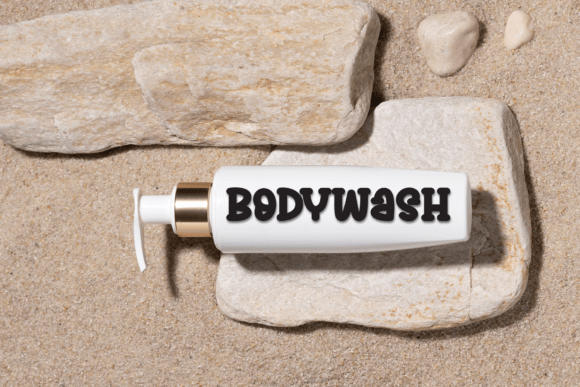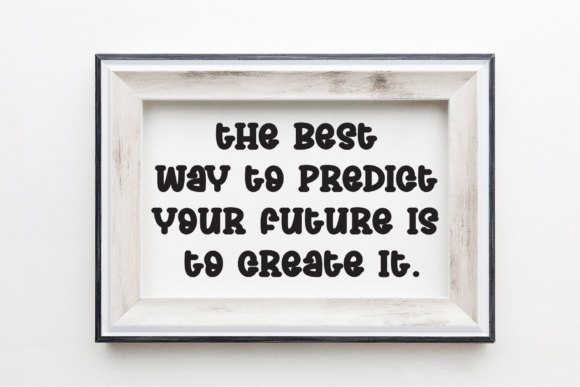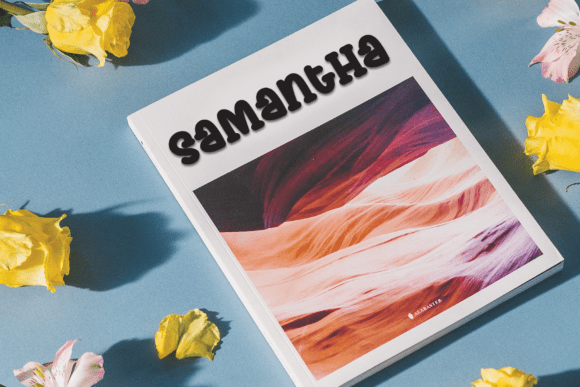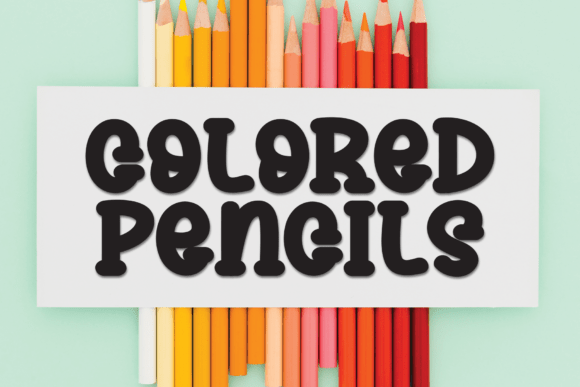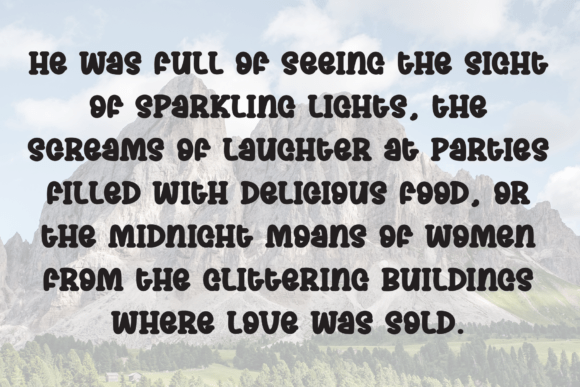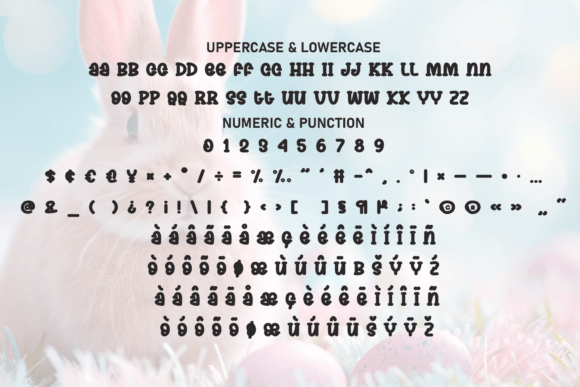
The Secret to Making Your Designs Hop with Joy
Remember that moment when you’re brainstorming a new project, and you just can’t quite put your finger on the right touch? You want to add a dash of whimsy, a pinch of playfulness, and a whole lot of heart. That’s where the Bunny Font comes in – a charming, handwritten display font that’s sure to bring a smile to your face and a spring to your step.
This sweet and friendly font is the perfect addition to any designer’s toolbox, offering an irresistible cuteness that’s simply irresistible. Whether you’re crafting wedding invitations, heartfelt cards, or anything in between, the Bunny Font is the perfect secret ingredient to infuse joy and personality into your visual communication.
Bunny Font Key Features
- Font Family: Bunny Font is a unique, custom-designed font that offers a playful and whimsical feel to any text.
- Unique Characteristics: Bunny Font features a distinctive, hand-drawn design with a mix of bold and cursive elements, adding a touch of personality to any text.
Bunny Font Review
First off, I want to say that I love the whimsical feel of the Bunny Font! ✨ It’s perfect for kids’ books, nursery decor, or any design project that needs a playful touch. The font is highly customizable, allowing you to adjust the size, color, and even add some cute animations. ✨
However, I do have a few concerns. ⚠️ One of the main limitations is that the font is quite thick and bold, which can make it difficult to read in smaller sizes. ⚠️ Additionally, the font doesn’t have a wide range of language support, which may limit its use in multilingual projects. ⚠️
- Perfect for kids’ projects or whimsical designs
Overall, I think the Bunny Font is a great choice for designers who want to add a playful touch to their projects. While it may have some limitations, the font’s versatility and customizability make it a great addition to any design toolbox.
Use Bunny Font for whimsical and playful designs. Pair it with bright colors and bold graphics to create a fun and engaging visual identity.
Bunny Font is commonly used for:
– Children’s books and educational materials
– Social media graphics and advertising
– Party invitations and decorations
– Branding and logo design for playful companies